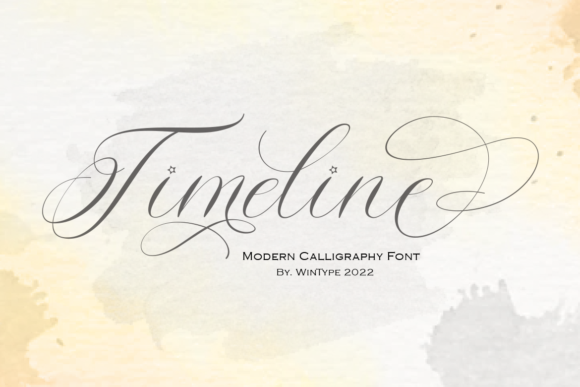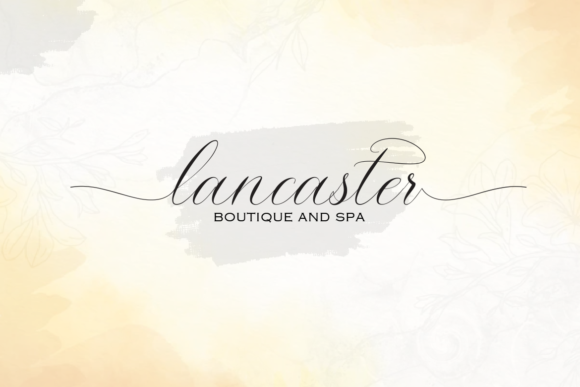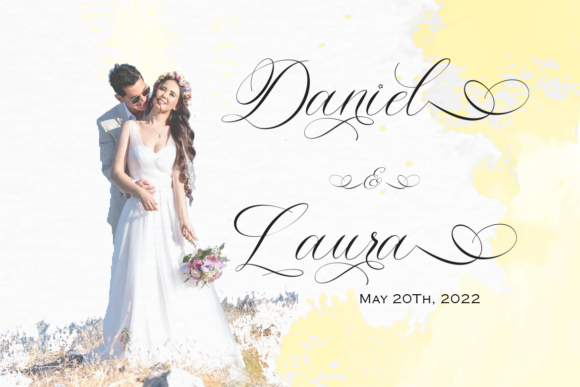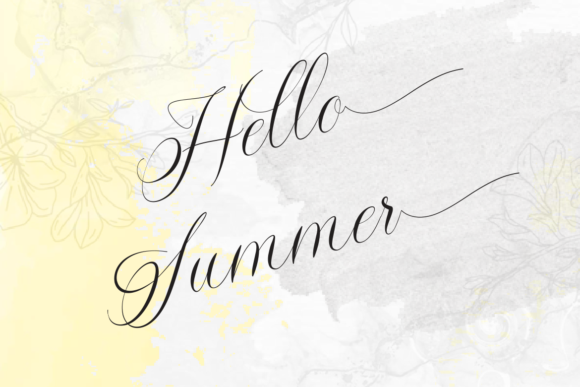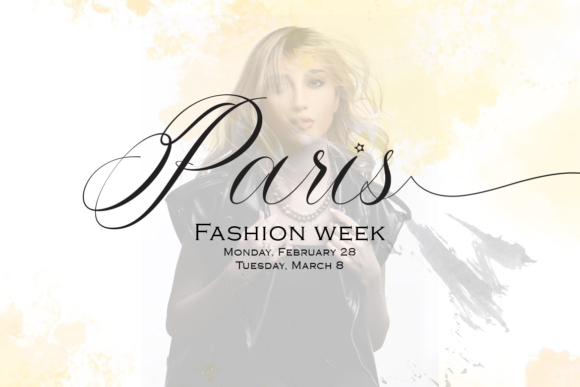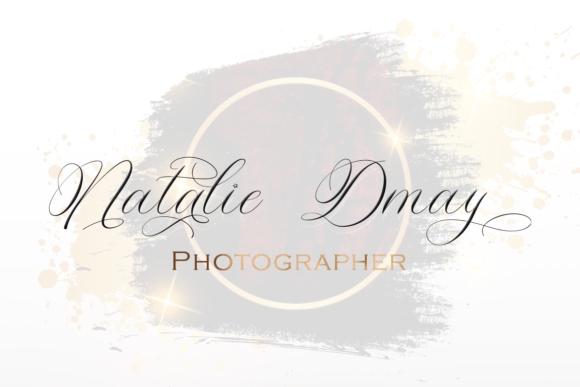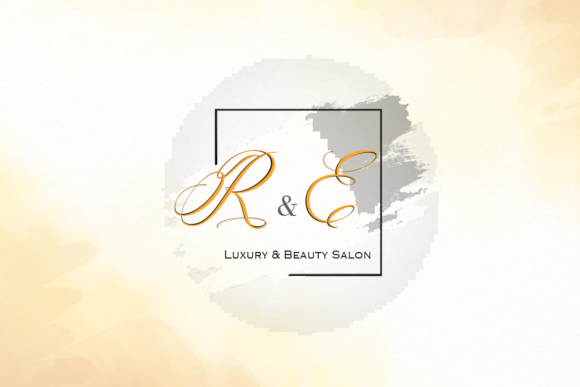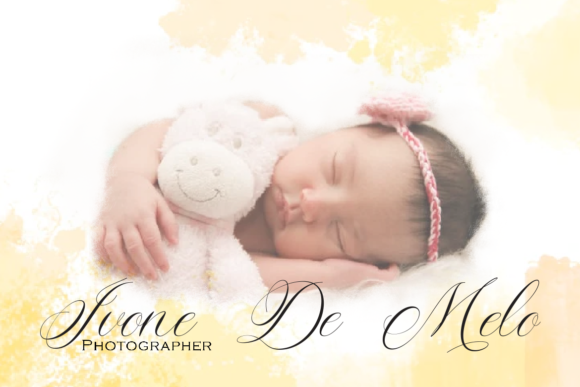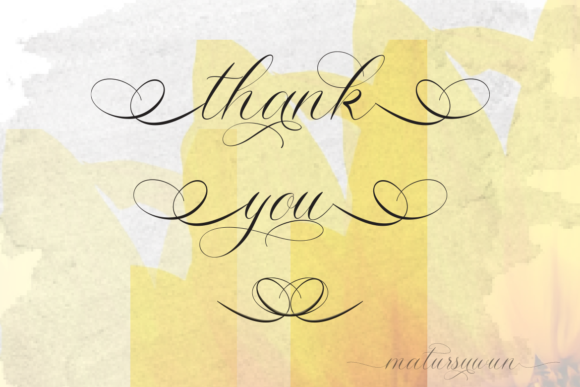
Timeline Font
About Timeline Font
Timeline is a sleek, modern, and graceful script font that stands out with its unique design. Crafted with meticulous attention to detail, Timeline is designed to deliver the expected outcomes, making it a valuable addition to any font library. Whether you’re working on a branding project, designing a logo, or creating a website, Timeline can add a touch of elegance and modernity to your creations.
One of the key features of Timeline is its sleek and modern design. Unlike traditional fonts, Timeline is designed with a unique script style that gives it a unique character. This sleek and modern design not only makes Timeline stand out but also adds a personal touch to your designs, making them more engaging and appealing to the audience.
Timeline is more than just a stylish script font. It’s a versatile design tool that can enhance the aesthetic appeal of your projects. Its elegant and modern look makes it suitable for a wide range of applications, from logos and branding to invitations, stationery, wedding designs, and more. The versatility of Timeline makes it a valuable addition to any designer’s toolkit.
In addition to its aesthetic appeal, Timeline also offers practical benefits. Its clear and legible design makes it suitable for both print and digital mediums. Whether you’re designing a business card or creating a website, Timeline ensures that your text is always easy to read and understand.
Timeline is not just a font; it’s a design asset. Its potential to enhance any creation makes it a valuable addition to any designer’s toolkit. With Timeline, you can add a touch of elegance and sophistication to your designs, making them more appealing and engaging.
In conclusion, Timeline is a sleek, modern, and graceful script font that can enhance the beauty of any design. Its elegant and modern look, combined with its versatility and high readability, makes it a valuable addition to any font library. Whether you’re a professional designer or a hobbyist, Timeline is a font that can help you create stunning and memorable designs. So, if you’re looking for a font that can add a personal touch to your designs, look no further than Timeline.